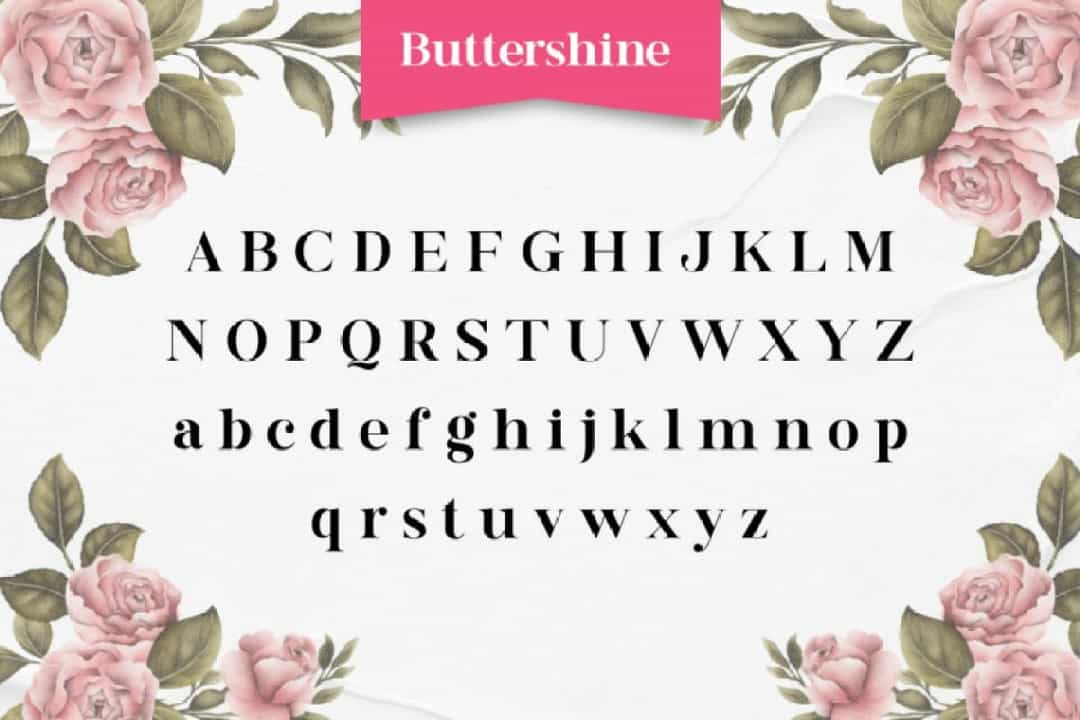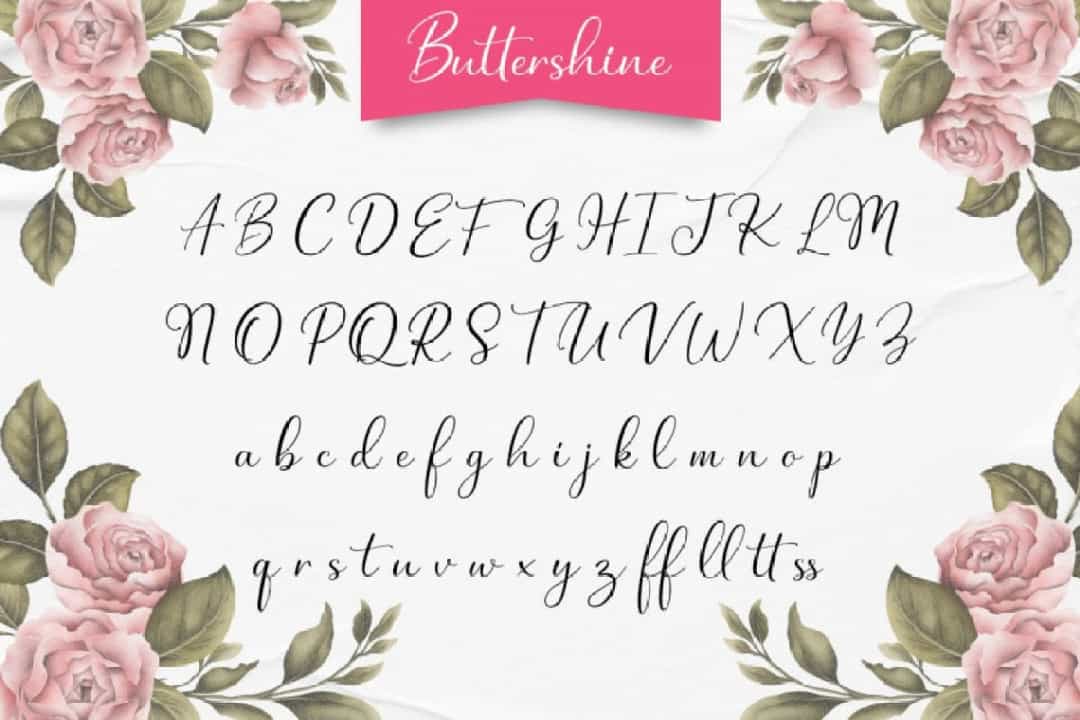
Discover Buttershine Font, part of the Handwritten Serif collection—a versatile and unique font perfect for adding a personal touch to your projects. Download it for free and enjoy crafting designs with style, from invitations to social media posts. This font is available exclusively for personal use, giving you the freedom to create without limits. Unlock your creativity with Buttershine Font today!
Buttershine is an elegant and beautiful dual script and serif font (both serifs as well as script). This elegant font will bring elegance to designs needing something unique like wedding invitations, thank-you cards invitations to weddings greeting cards logos etc.